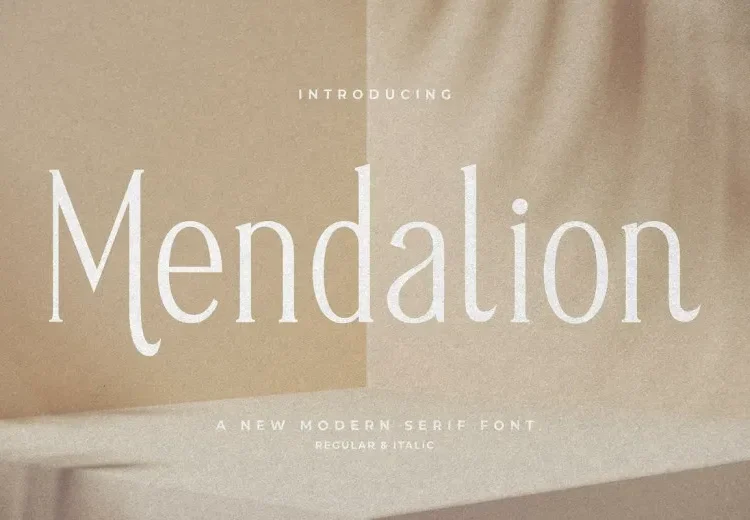
Mendalion Font
Mendalion is a stunning modern and classic serif font that exudes sophistication and style. Its unique design and contemporary appeal make it an ideal choice for luxury logos, book or movie titles, fashion brands, magazines, clothing designs, and captivating quotes.
This versatile typeface brings a refined touch to any project, making it perfect for high-end branding, editorial designs, and creative typography.